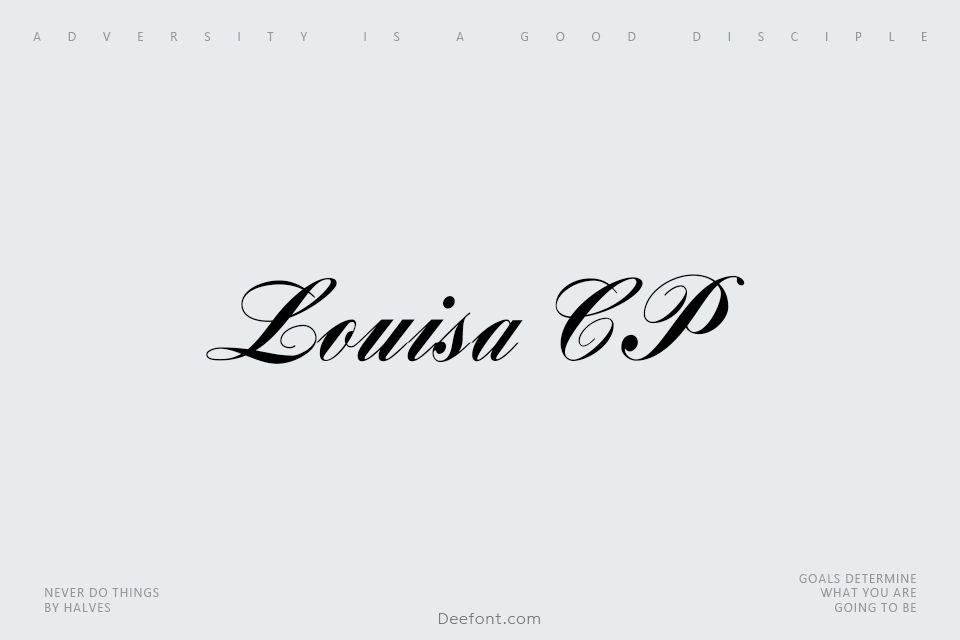
Louisa CP Font
Louisa CP is an elegant and flowing script calligraphy font designed by Claude Pelletier. With its graceful curves and refined letterforms, this typeface evokes a vintage aesthetic reminiscent of 1970s design. The font features 150 glyphs and captures the charm of classical handwritten scripts, making it perfect for formal invitations, wedding designs, and sophisticated branding projects. Its smooth, decorative quality brings an artistic touch to any typography endeavor while maintaining excellent readability.